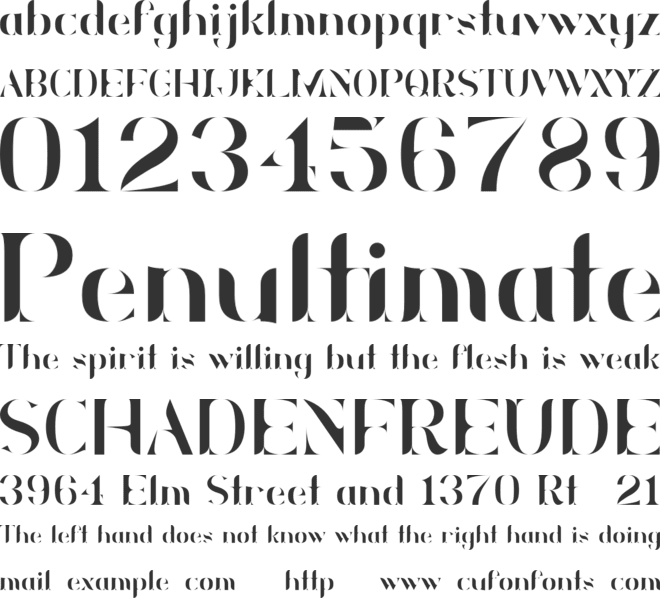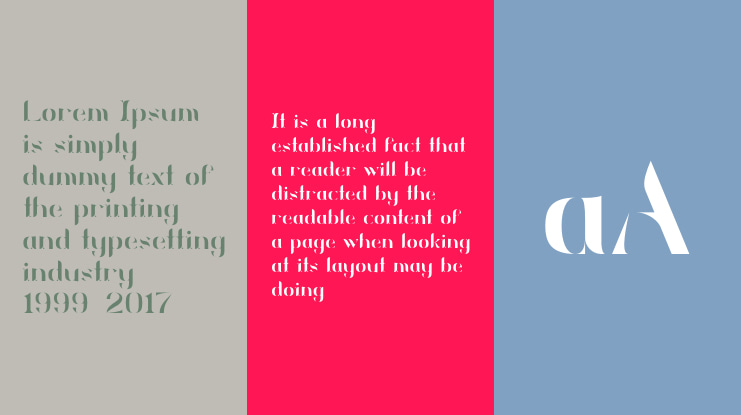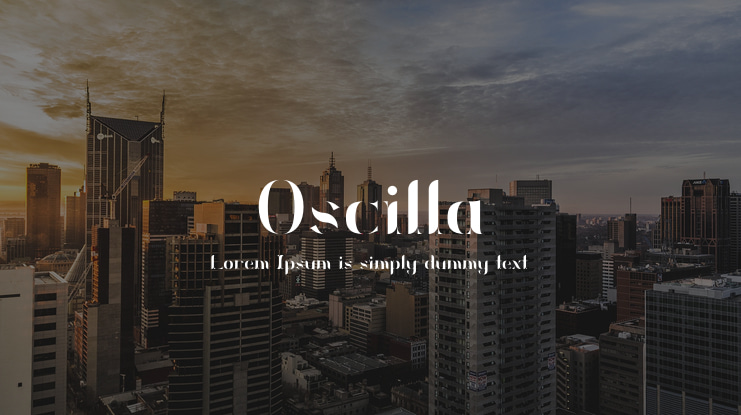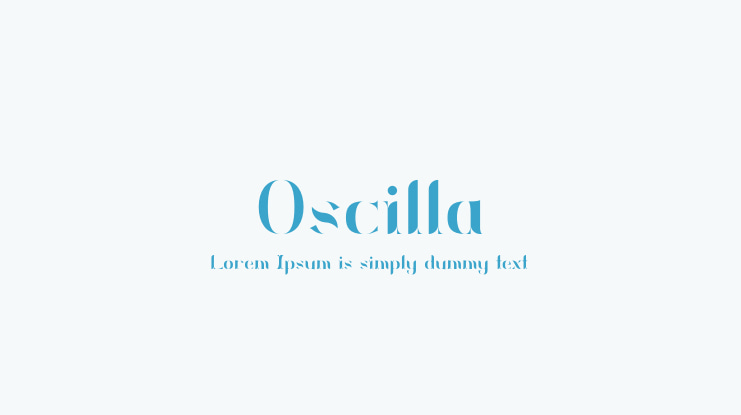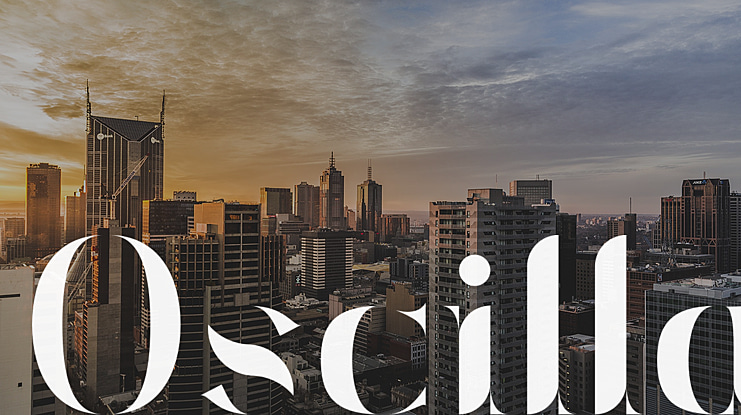
This typeface is a sans serif font inspired by fonts from the turn of the 70s/80s with a slight dose of imperfection. Made from font designer named Ryan Lin. With its unique appearance the font is perfect for editorial, advertising, branding, posters, or typography projects.